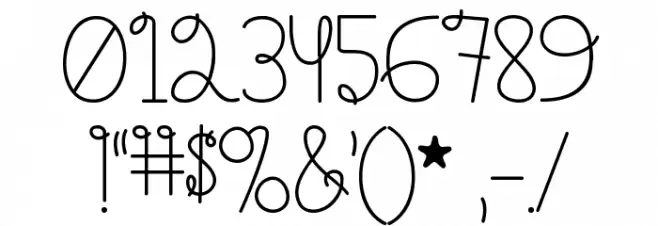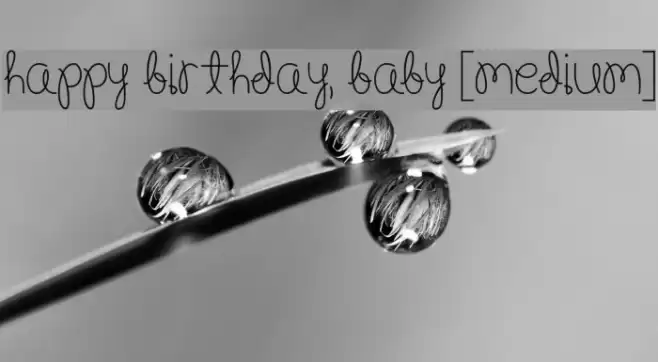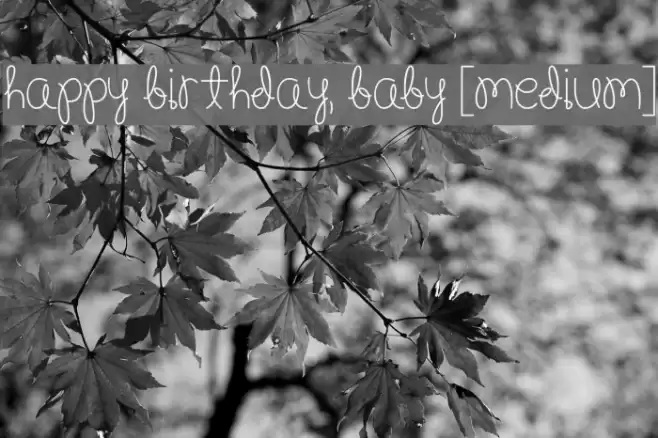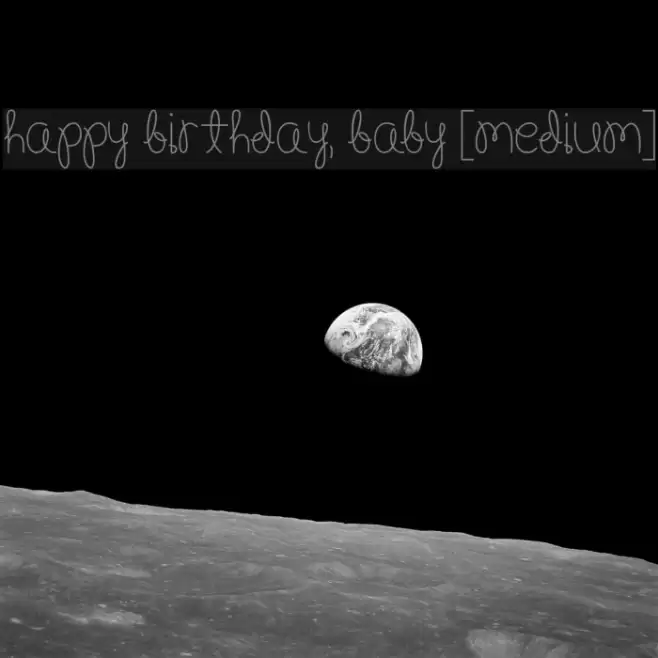
Happy Birthday, Baby [Medium] Font
Happy Birthday, Baby [Medium] Description
This playful and whimsical font features a handwritten style with a unique flair. Each character is crafted with a sense of fun, incorporating loops and curls that add a lively personality to the text. The letters are thin and elongated, giving a sense of elegance while maintaining a casual and approachable feel. The numbers and special characters follow the same playful design, ensuring consistency throughout. This font is perfect for projects that require a touch of creativity and joy, such as greeting cards, invitations, and playful branding.
A playful, handwritten font with whimsical loops and curls from Uncategorized fonts.
- Proposed Projects: Ideal for greeting cards, invitations, playful branding, and children's books.
- Overall Style: Playful